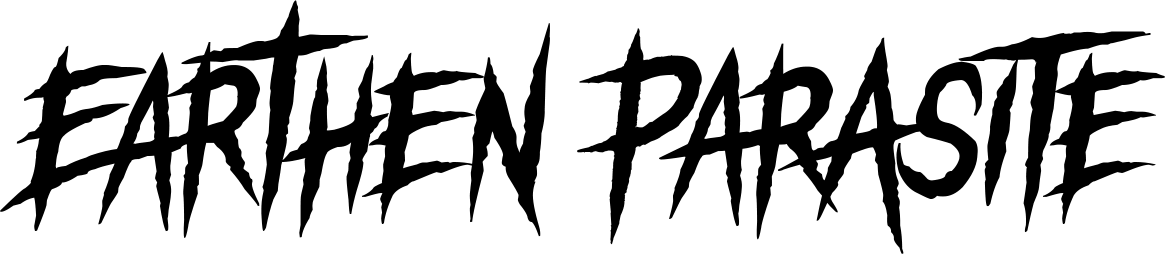
Earthen Parasite Font
The unique sharp and scary design of the Earthen Parasite horror font would stand out in your typography and go beyond the others. Looking it is inspired by scary retro movies or Halloween poster design, the Earthen Parasite font is regarded as a unique option if you want to add a classical touch to design graphics.
Although it lacks small letters, it will certainly distinguish your writing in the headlines, posters, book titles, scary movies, or any other retro project design.
Earthen Parasite is created to stir up the waters. A font best described as “restless nightmare” due to its looks. Incorporate a little havoc to your designs. Give in to the Earthen Parasite!
– Slant Version
– Multilingual Support